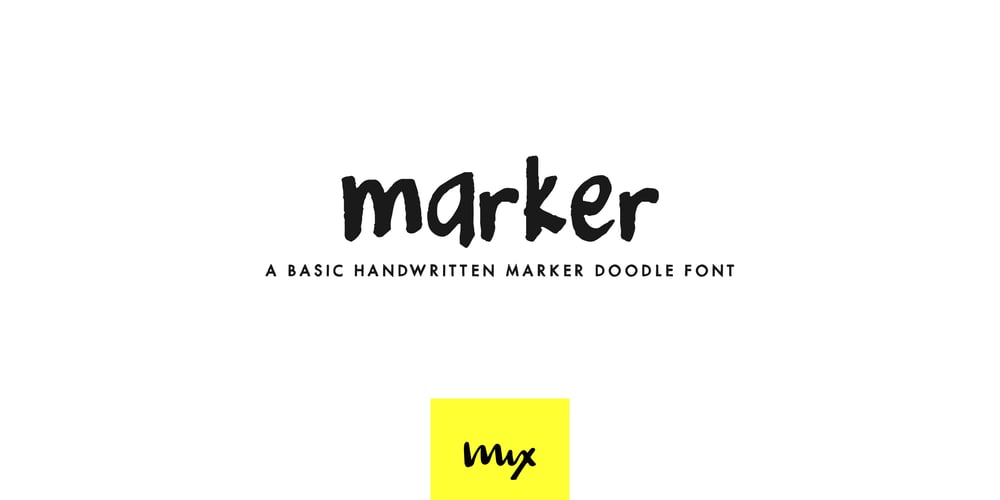
Marker
Marker font
Marker Font Family was designed by Mikko Sumulong and published by Mix Fonts. Marker contains 1 styles and family package options. Mix Marker is a playful and unique handwritten label font that adds a touch of human flair to your projects. Imagine writing your name on a mailing label with a marker – that’s the fun, casual look and feel of this special font. Each character was handdrawn with a basic everyday marker, and then carefully digitized, cleaned up, and converted into a font. Mix Marker is perfect for adding a handmade touch to DIY themed projects, or for giving your digital designs a handlettered feel. So why wait? Make what’s digital seem handwritten with Mix Marker. Mix Marker includes the dollowing characters: ABCDEFGHIJKLMNOPQRSTUVWXYZ abcdefghijklmnopqrstuvwxyz 0123456789 !@$#%^&*()`~• +=[]:;’”,.|/?{}<>“”‘’-–—_…°¡¿₱¢€£¥ ÁÀÂÄÃÅĂĀĄÆĆČÇÐÉÈÊËĖĒĘÍÌÎÏĪĮŁŃÑÓÒÔÖÕØŌŐŒŚŠȘȚÚÙÛÜŰŪŲÝŸŹŽŻÞ áàâäãåăāąæćčçðéèêëėēęíìîïīįłńñóòôöõøōőœśšșțúùûüűūųýÿźžżþß